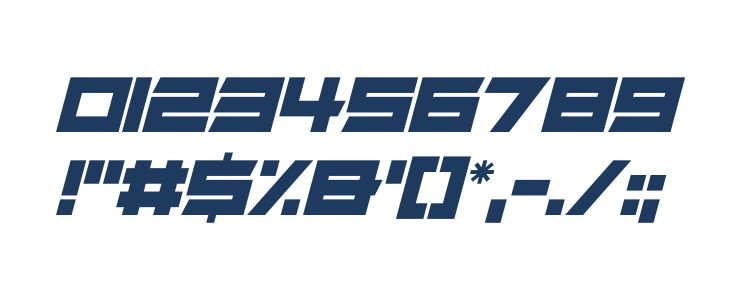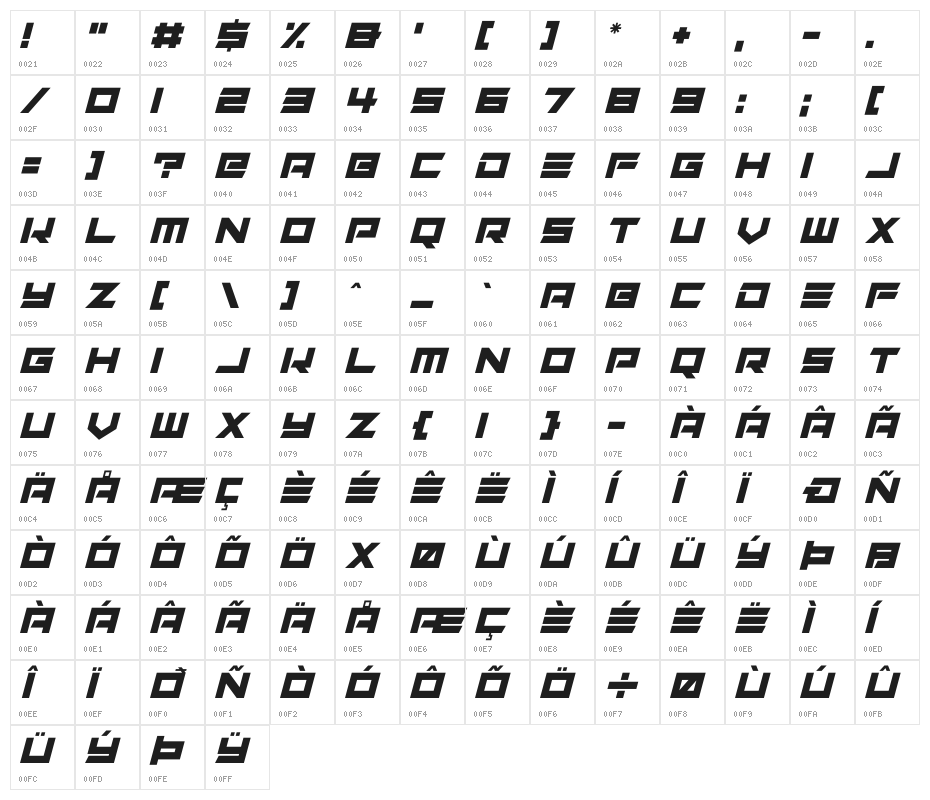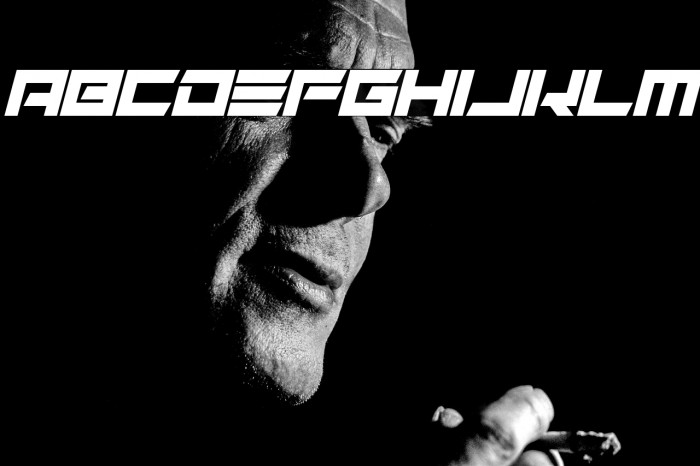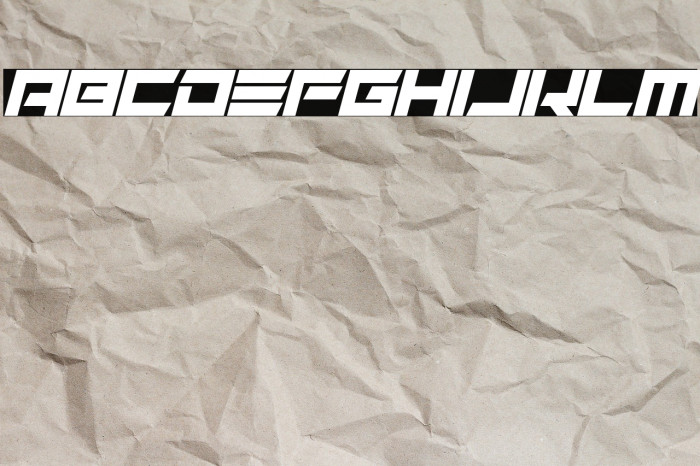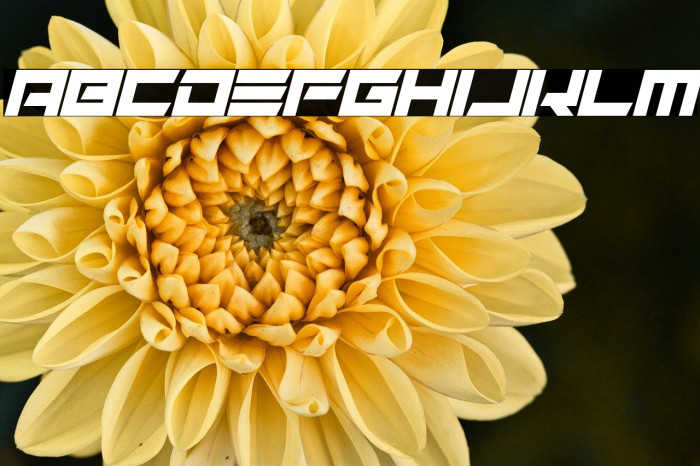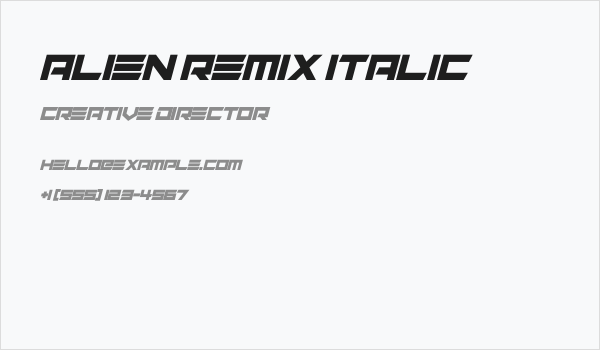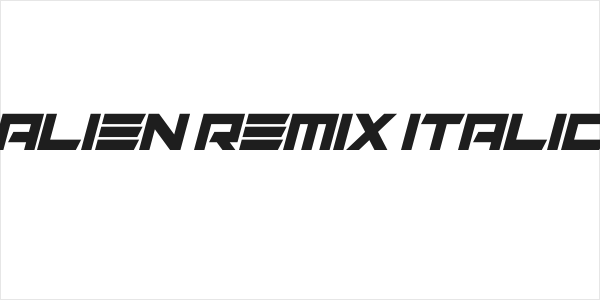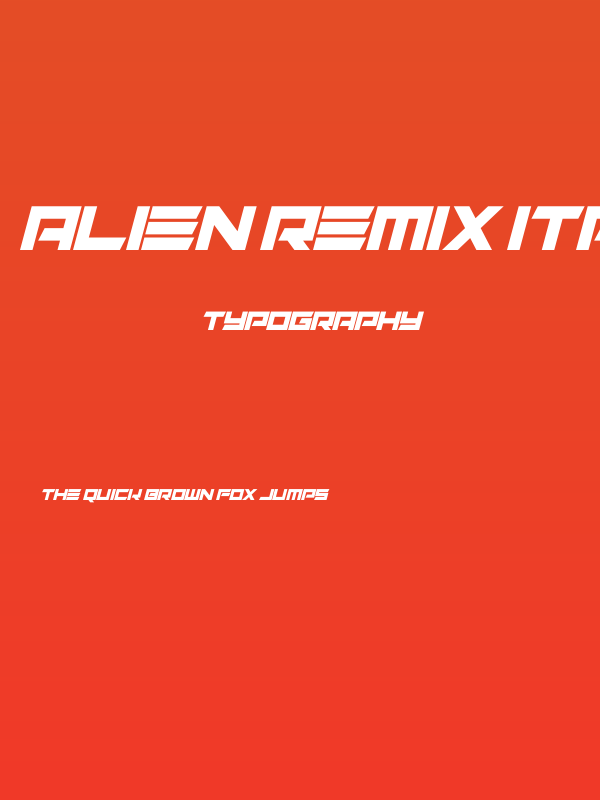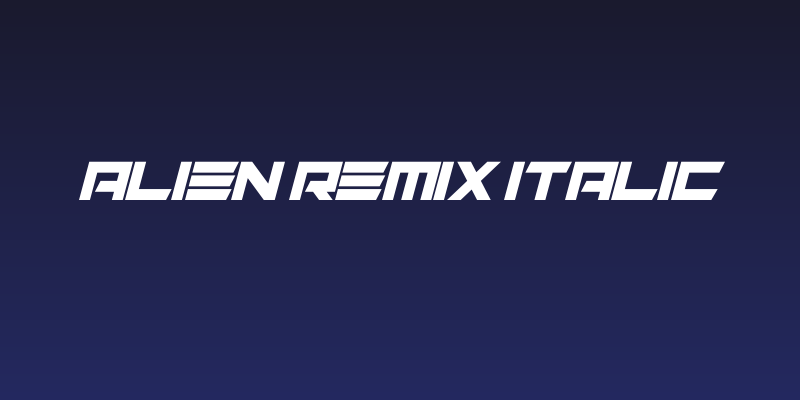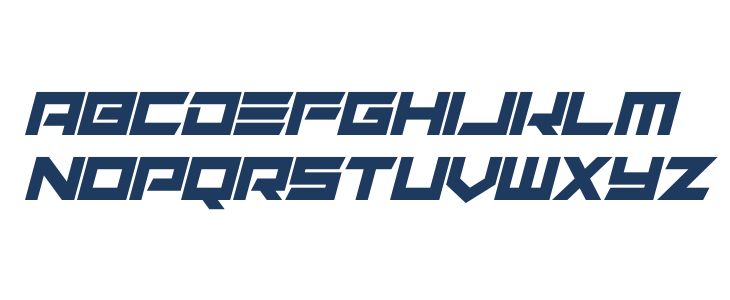
Alien Remix Italic Font
Alien Remix Italic Description
This font features a futuristic and angular design, characterized by its sharp edges and geometric forms. The letters are italicized, giving a sense of motion and dynamism. The uppercase and lowercase letters maintain a consistent style, with a bold and solid appearance. The numbers and special characters follow the same angular and modern aesthetic, making the font suitable for projects that require a cutting-edge and tech-inspired look. The overall design is cohesive and visually striking, ideal for making a bold statement.
| Proposed Projects | Ideal for sci-fi themed posters, video game titles, tech branding, and futuristic design projects. |